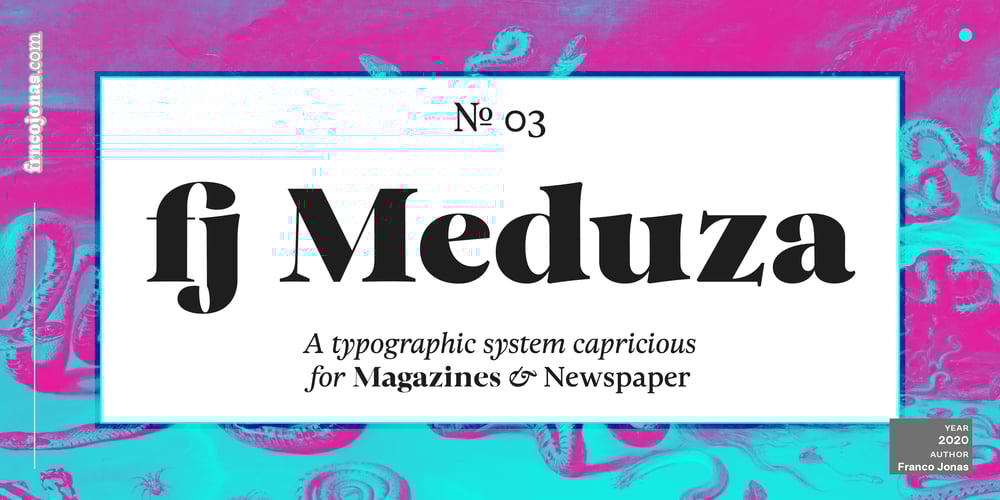
Meduza Collection FJ
Meduza Collection FJ font
Meduza Collection FJ Font Family was designed by Franco Jonas and published by Frncojonastype. Meduza Collection FJ contains 24 styles and family package options. fj Meduza is a new typographical system designed by Franco Jonas Hernández, born as an exploring process from the classic model from —modern or didones style— typhography from XIX century. fj Meduza also explores the posibilities of Optical Adjustments —from 8 or 10 to 72 pts— offering a version to compose preferent reduced sizes —newspapers— and another version to titles with long-standing. Ideally for Branding, Headlines and especially complex editiorial contexts.